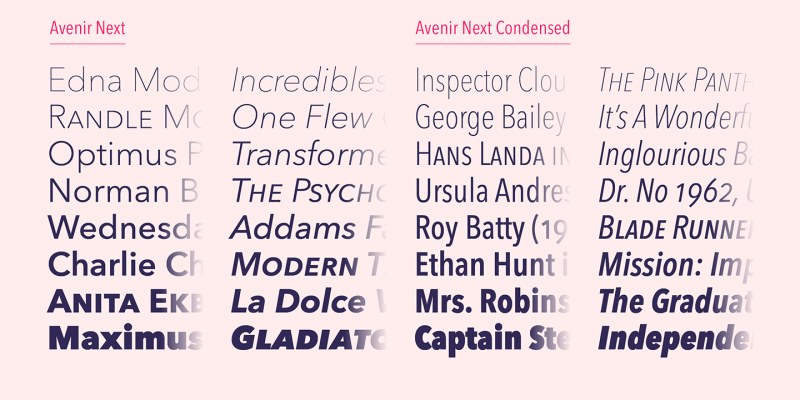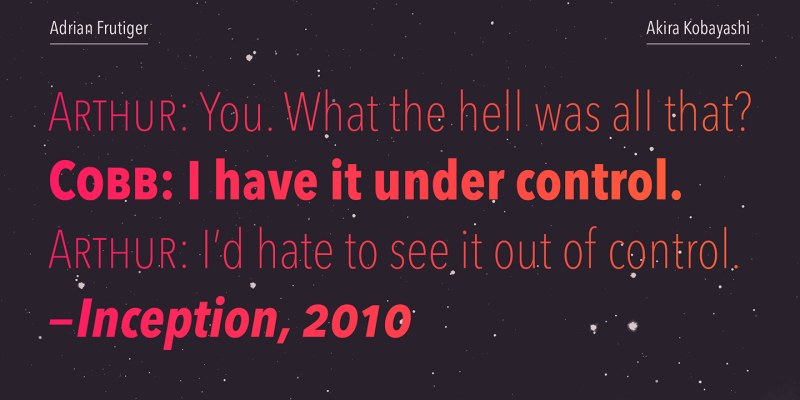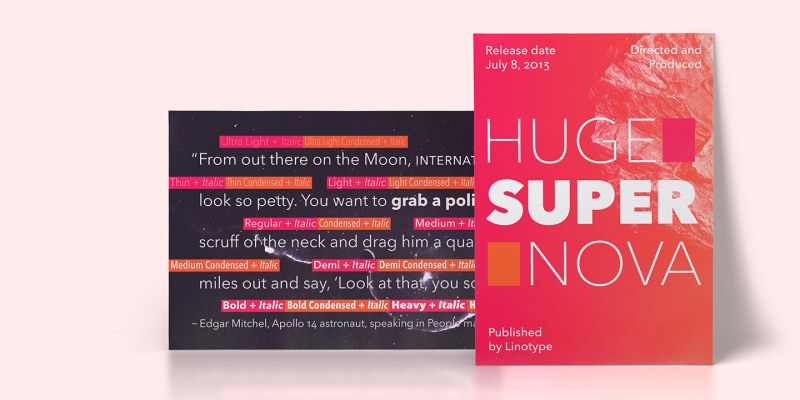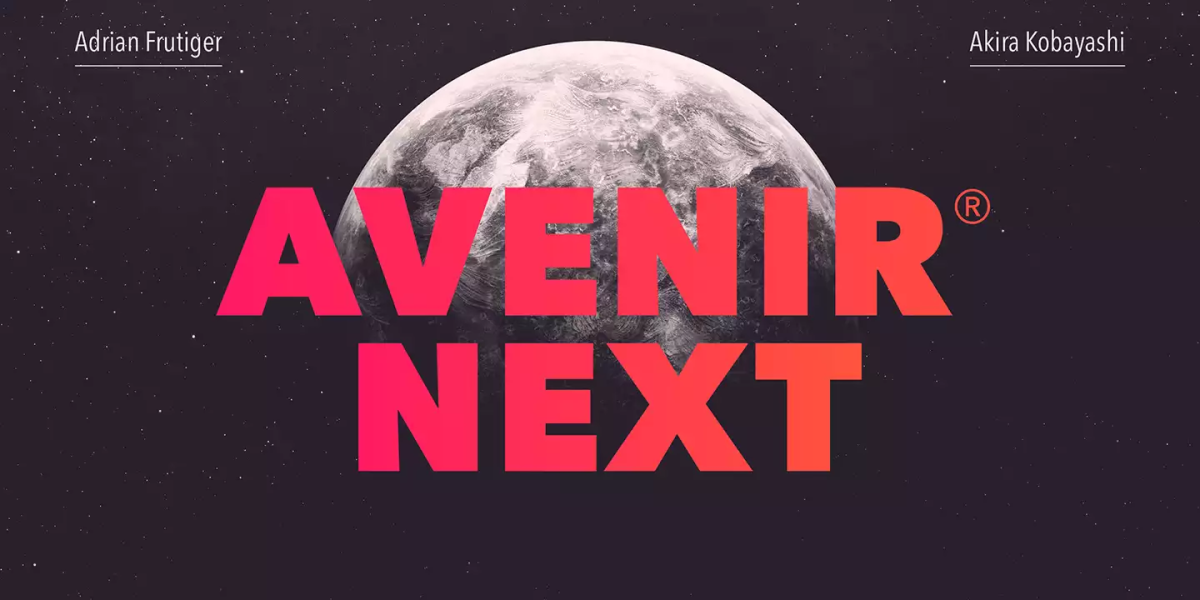
Avenir Next Font
Avenir Next is a modern sans serif typeface constructed by Adrian Frutiger, Akira Kobayashi, and Akaki Razmadze. The new version, Avenir Next, has been built on the best features of the original Avenir typeface, launched in 2004 by Linotype GmbH. Its purity of lines, ideal volumes, and versatility make it one of the favorite styles of many designers for multiple applications.
One of the most distinctive points of Avenir Next is the smooth contrast of a blend of geometric shapes and Humanism. Fusing those traits into the typeface gives it a modern look yet is approachable and helpful in different design scenarios. Space between the letterforms is left intentionally to provide a clear distinction between the letterforms. Moreover, stroke modulation combined with slight variations in the terminals upgrades legibility and readability across various weights and sizes.
Avenir Next provides vast choices of weight and styles, from the most ultra-light-weight to the heaviest ultra-bold, together with corresponding italics. This variability allows designers to choose from various possibilities and develop visually appealing layouts while keeping unity and cohesion. This typeface can be utilized as headlines, body texts, or infographics, as it seamlessly fits into various design needs.
The design is immaculate and uncluttered, making it an exceptional print choice because it is easy to read even when the text is small or low resolution. Furthermore, Avenir Next supports many languages and character sets, making this font accessible to the global market.
Over time, Avenir Next has become a reliable source in the typography landscape, which designers in different industries favor. Its ageless shape and versatility can be a universal identifier in branding, advertising, editorial design, web typography, and more. Whether it is used in the context of print or digital media, Avenir Next is always the best solution that provides a modern and remarkable typeface.
The origins of Avenir Next can be traced back to the early 1980s when Adrian Frutiger set out to create a new typeface that would combine the best qualities of two popular fonts: Futura and Erbar-Grotesk. Frutiger aimed to produce a geometrically accurate typeface like Futura and as legible as Erbar-Grotesk.
The product evolved for years and released in 1988 as part of the Linotype collection. It gained recognition for its clean and modern design, and designers who wanted simplicity but wanted to maintain elegance soon made it their favorite.
Over time, Avenir has undergone various revisions and upgrades to come to its current version – Avenir Next finally. Among these updates were changes to the forms and weights of the letters or their spacing to improve the clarity of the letters at different sizes and on various types of media.
Avenir Next exhibits an approachable look with a sophisticated twist. The shapes are geometric, but the corners are curved. The fonts have open apertures that institute readability even in smaller sizes or on low-resolution screens.
One unique feature of Avenir Next is its whole spectrum of weights – from thin to black – which is helpful when a designer wants to achieve different visual effects while keeping the design coherent. Furthermore, the font has a large x-height, enough to considerably hold the space between lines without affecting the readability.
Avenir Next has a unique advantage over popular fonts like Helvetica or Univers because of its minute letter variations. For instance, the lowercase ‘a’ and the uppercase ‘G’ have a unique double-story design in the lowercase and a spurless and simplified form in the uppercase. This subtle variation creates the unique personality of Avenir Next font, which helps designers who want a modern yet timeless font.
Font Family Avenir Next Designer Adrian Frutiger Classification Geometric sans-serif Weights 8 Styles Normal, Italic Character Set Latin, Greek, Cyrillic, Arabic, Hebrew, Vietnamese, Thai, and more Usage Print and digital media, branding, advertising, packaging, and more Features Legible, versatile, modern, elegant, and adaptableAvenir Next Font is a typeface designed by Adrian Frutiger and Akira Kobayashi. It is a sans-serif font that was first released in 1988.
Avenir Next Font is known for its clean and modern design. It has a geometric structure and is highly legible, making it a popular choice for both print and digital media.
Avenir Next Font is available in several styles, including Regular, Italic, Medium, Medium Italic, Demi, Demi Italic, Bold, and Bold Italic.
Avenir Next Font was designed as a modern alternative to other popular sans-serif fonts like Helvetica and Univers. It was first released in 1988 and has since become a popular choice for designers and typographers.
Avenir Next Font has been used in a variety of applications, including branding, advertising, and editorial design. Some notable examples include the logo for the City of Melbourne, the branding for the 2016 Rio Olympics, and the cover of the book “Becoming” by Michelle Obama.